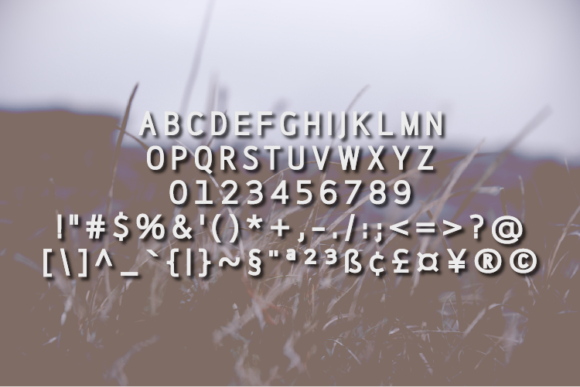
Introducing Alliony Font: A Timeless Sans Serif for Modern Designs
In the world of typography, a font can make or break a design. With so many options available, it’s easy to get lost in the sea of typefaces. However, if you’re looking for a simple, yet elegant sans serif font that exudes a clean and timeless feel, look no further than Alliony Font. In this article, we’ll dive into the world of Alliony, exploring its features, benefits, and uses, making it a must-have for designers and crafters alike.
The Alliony Advantage: Simple, Timeless, and Clean
Alliony Font is a sans serif font that boasts a neat and beautiful arrangement of letters, making it perfect for both formal and non-formal designs. Its simplicity is its greatest strength, allowing it to adapt seamlessly to various design contexts. Whether you’re working on a corporate brand identity, a website, or a craft project, Alliony’s clean feel ensures that your message is conveyed with clarity and sophistication.
Key Features of Alliony Font
• Simple and Timeless Design: Alliony’s sans serif design ensures that your text is easily readable, while its classic look makes it suitable for a wide range of applications.
• Clean and Elegant: The font’s neat arrangement of letters creates a beautiful visual flow, perfect for designs that require a touch of sophistication.
• Versatile: Alliony is suitable for both formal and non-formal designs, making it an excellent addition to any designer’s toolkit.
• Easy to Read: The font’s clear and concise design ensures that your text is easily readable, even at smaller font sizes.
Uses of Alliony Font
Alliony Font is an incredibly versatile typeface, making it suitable for a wide range of design applications. Here are a few examples:
• Branding and Identity: Use Alliony to create a professional and sophisticated brand identity that exudes confidence and elegance.
• Web Design: Alliony’s clean design makes it perfect for web design, ensuring that your website’s text is easily readable and visually appealing.
• Print Design: From brochures to business cards, Alliony is an excellent choice for any print design project that requires a touch of sophistication.
• Crafting and DIY Projects: Add a touch of elegance to your crafting and DIY projects with Alliony’s beautiful and intricate design.
Why Designers and Crafters Love Alliony Font
Alliony Font has quickly become a favorite among designers and crafters due to its unique combination of simplicity, elegance, and versatility. Here are a few reasons why:
• Easy to Use: Alliony is incredibly easy to use, making it perfect for designers and crafters of all skill levels.
• Highly Readable: The font’s clear and concise design ensures that your text is easily readable, even at smaller font sizes.
• Customizable: Alliony can be easily customized to fit your design needs, making it an excellent choice for designers who require a high degree of flexibility.
In conclusion, Alliony Font is a simple, yet timeless sans serif font that offers a clean and elegant design solution for designers and crafters. Its versatility, readability, and customizability make it an excellent addition to any design toolkit. Whether you’re working on a corporate brand identity, a website, or a craft project, Alliony is an excellent choice that is sure to elevate your design to the next level.